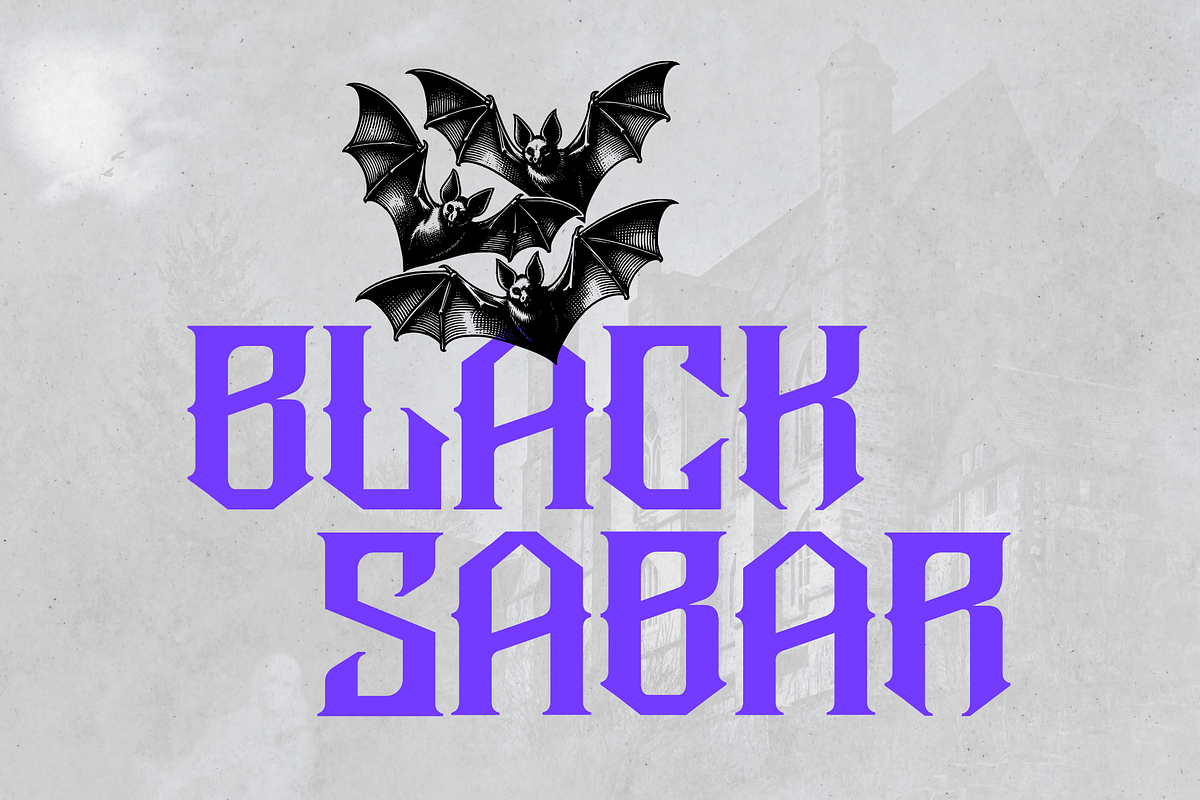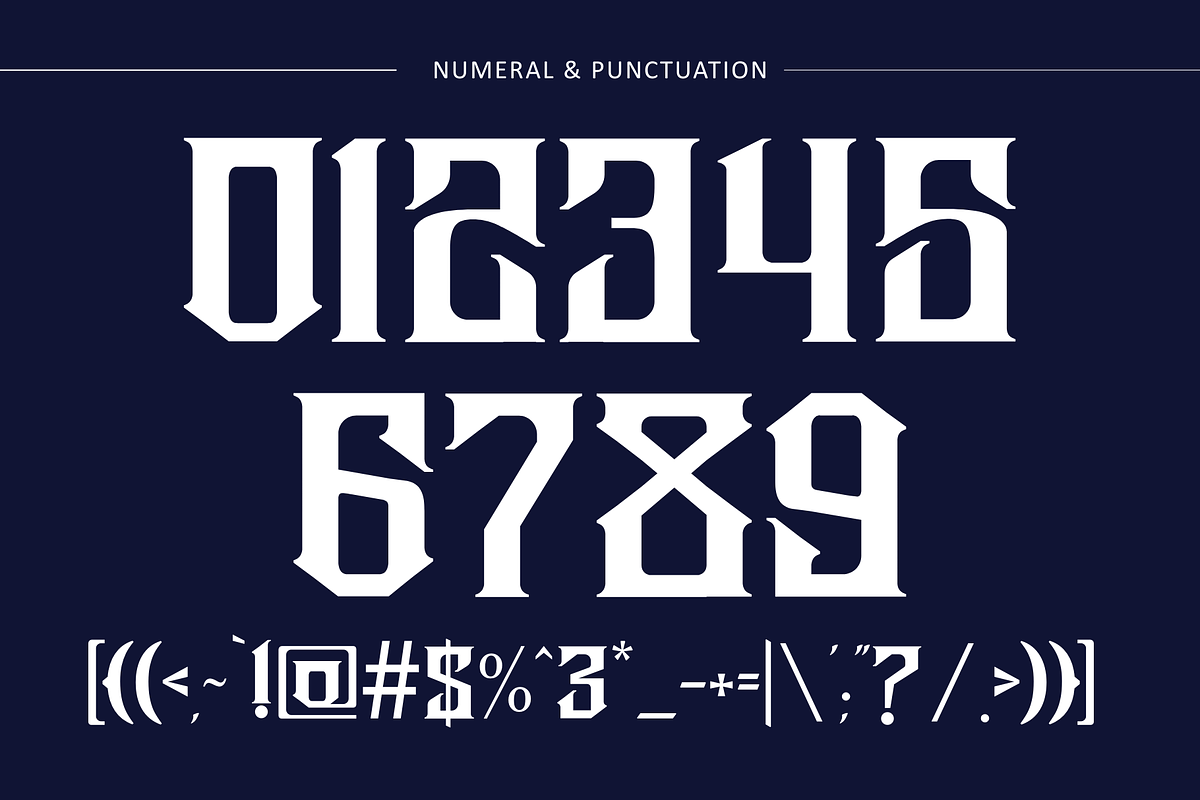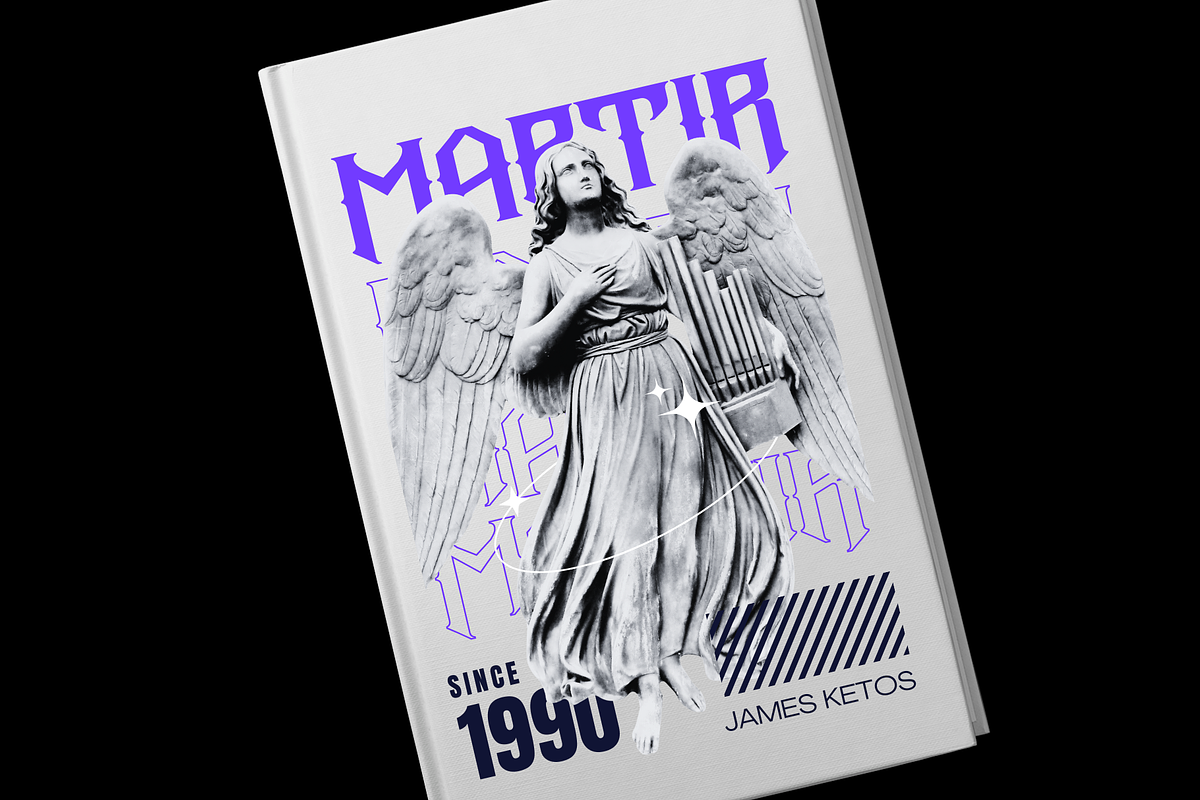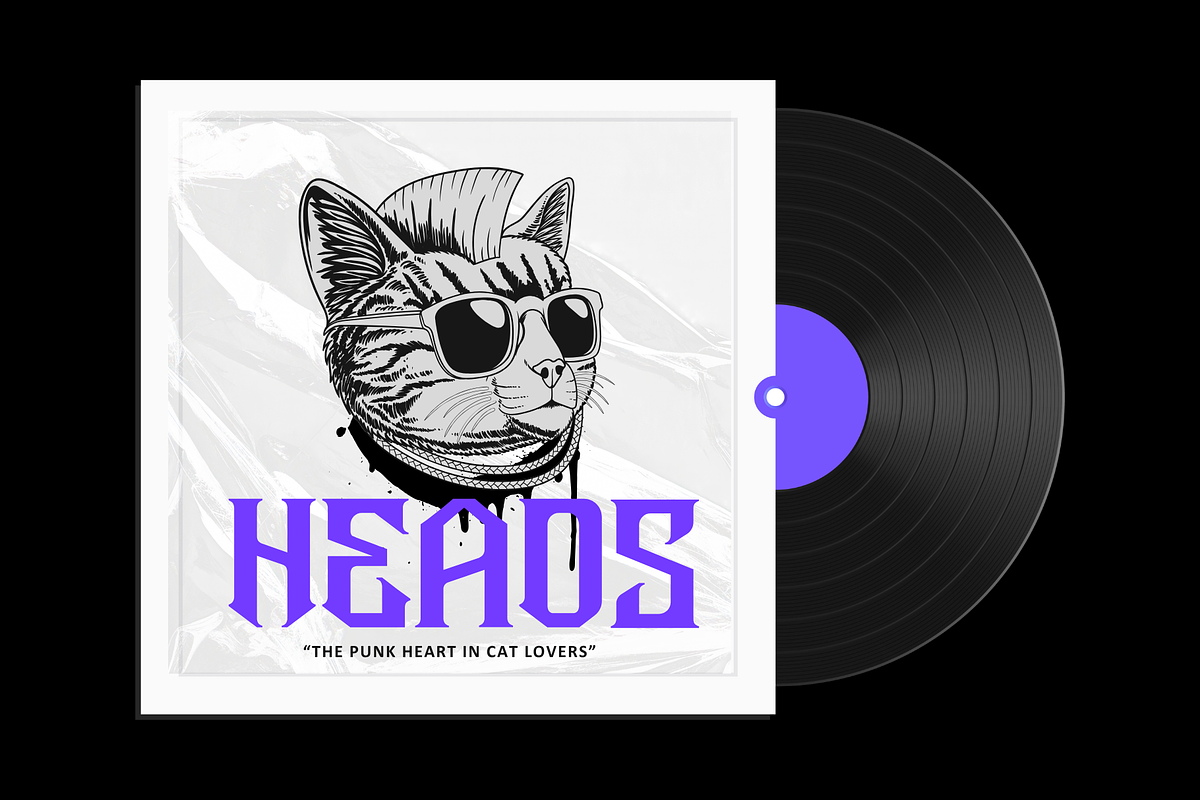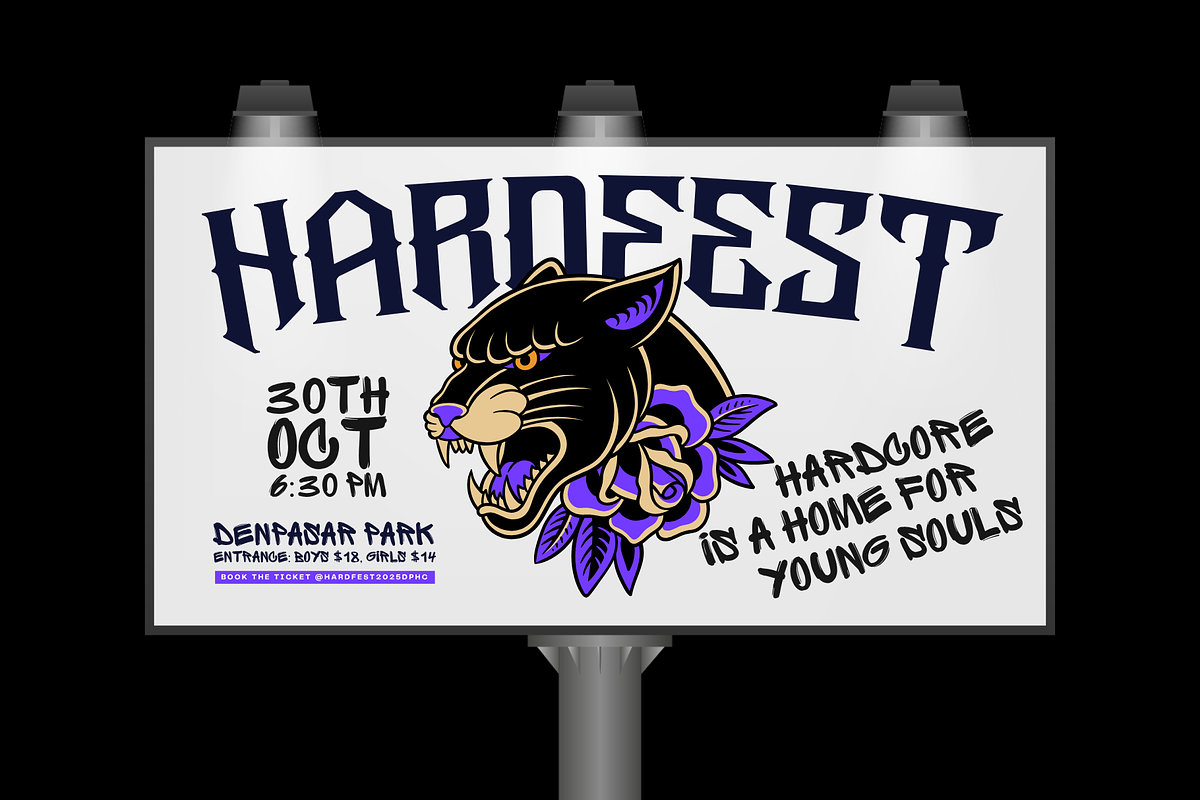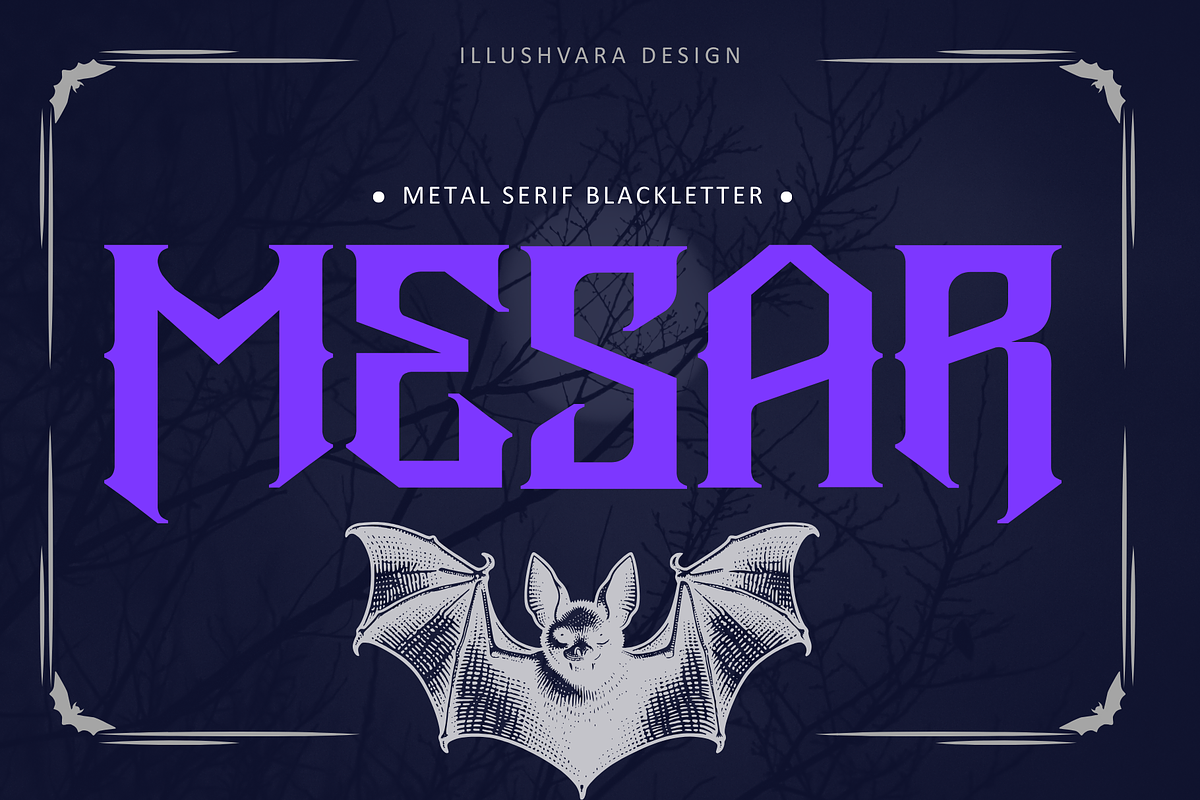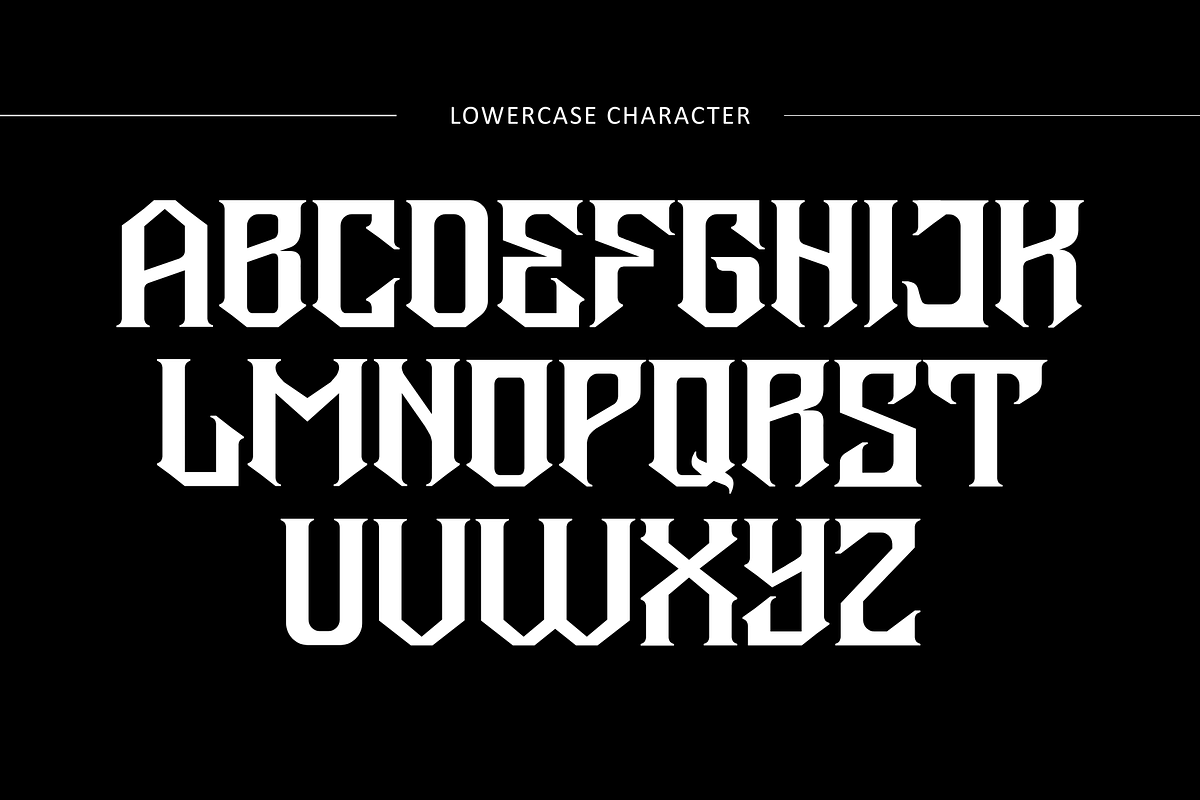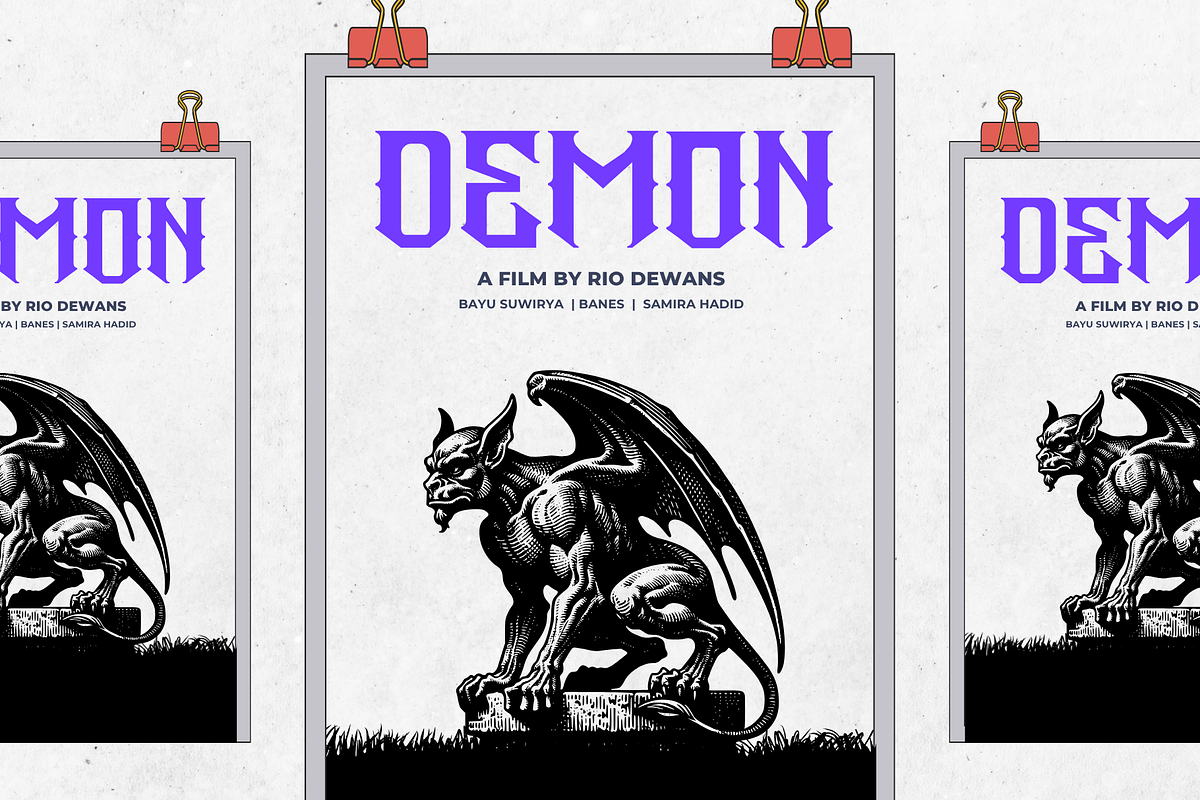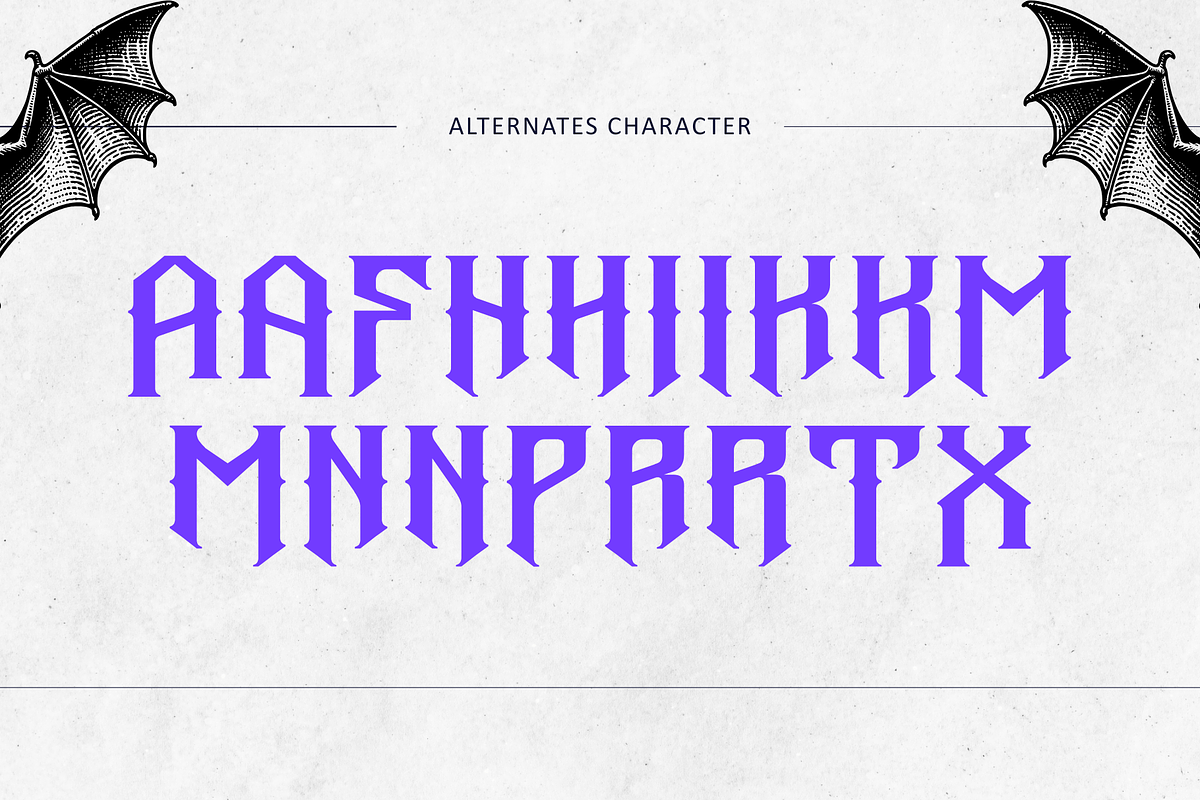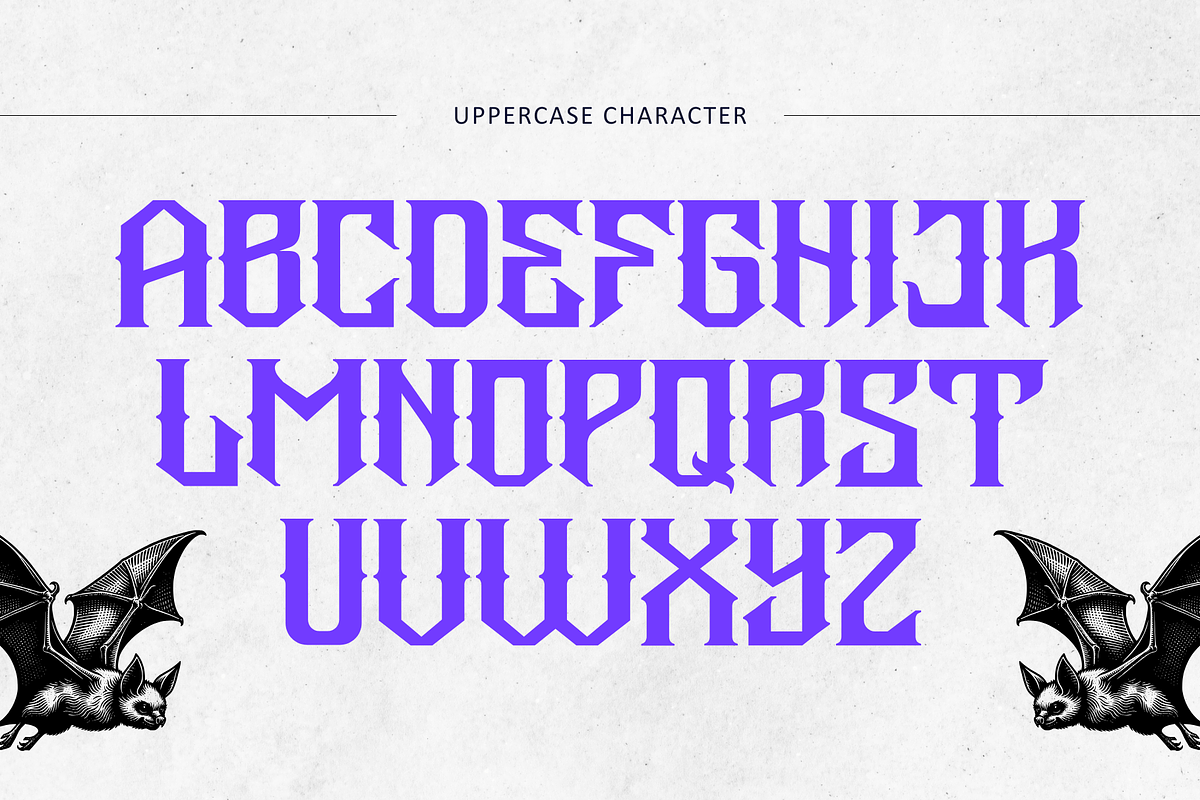
Blackletter Logo Serif - Metal Mesar
Say hello to Metal Mesar - Blackletter Logo Serif Font
Metal Mesar is a bold all-caps display font that fuses the sharp power of metal typography with classic serif structure and blackletter intensity. Designed for maximum impact, its aggressive edges and gothic nuances make it perfect for music branding, band logos, posters, and heavy visual projects. Metal Mesar delivers raw energy and timeless grit — a fierce choice for those who demand bold presence and dark elegance in every design.